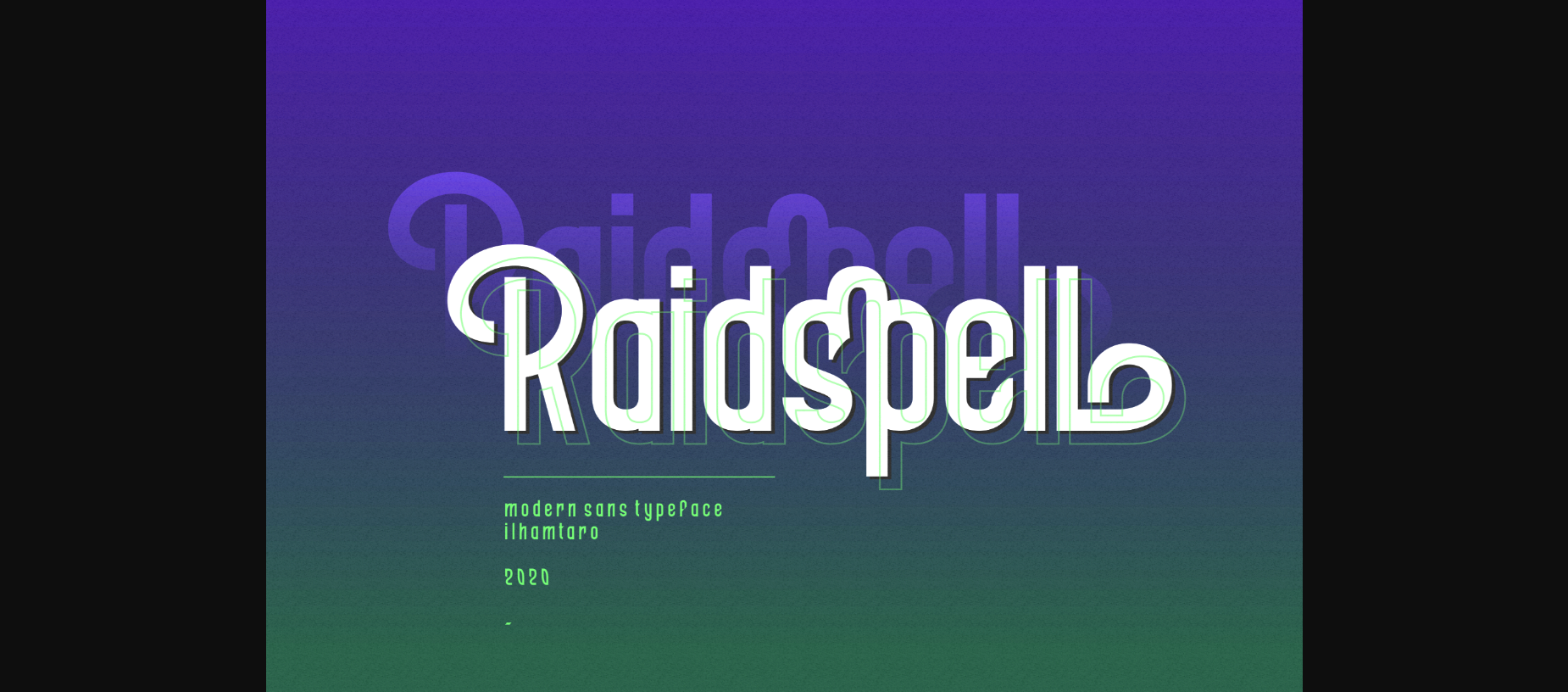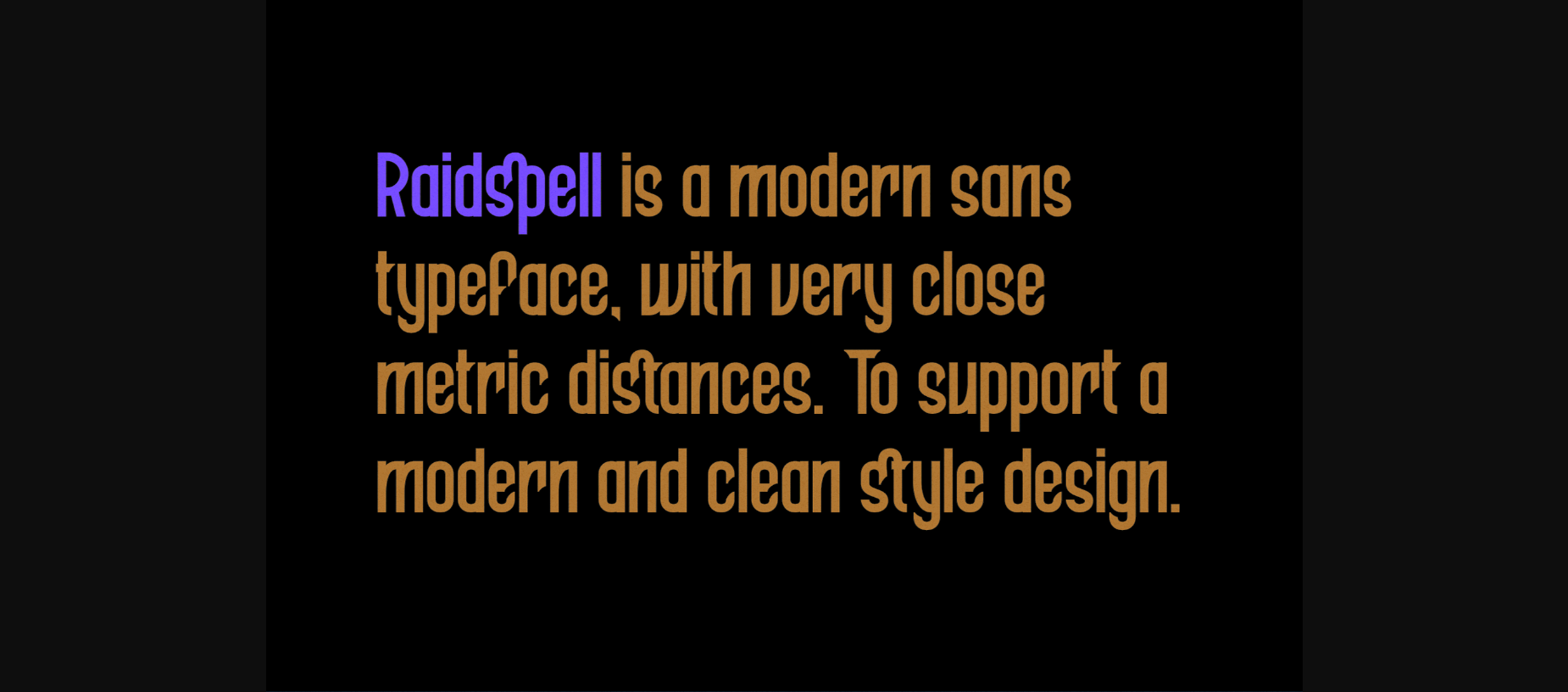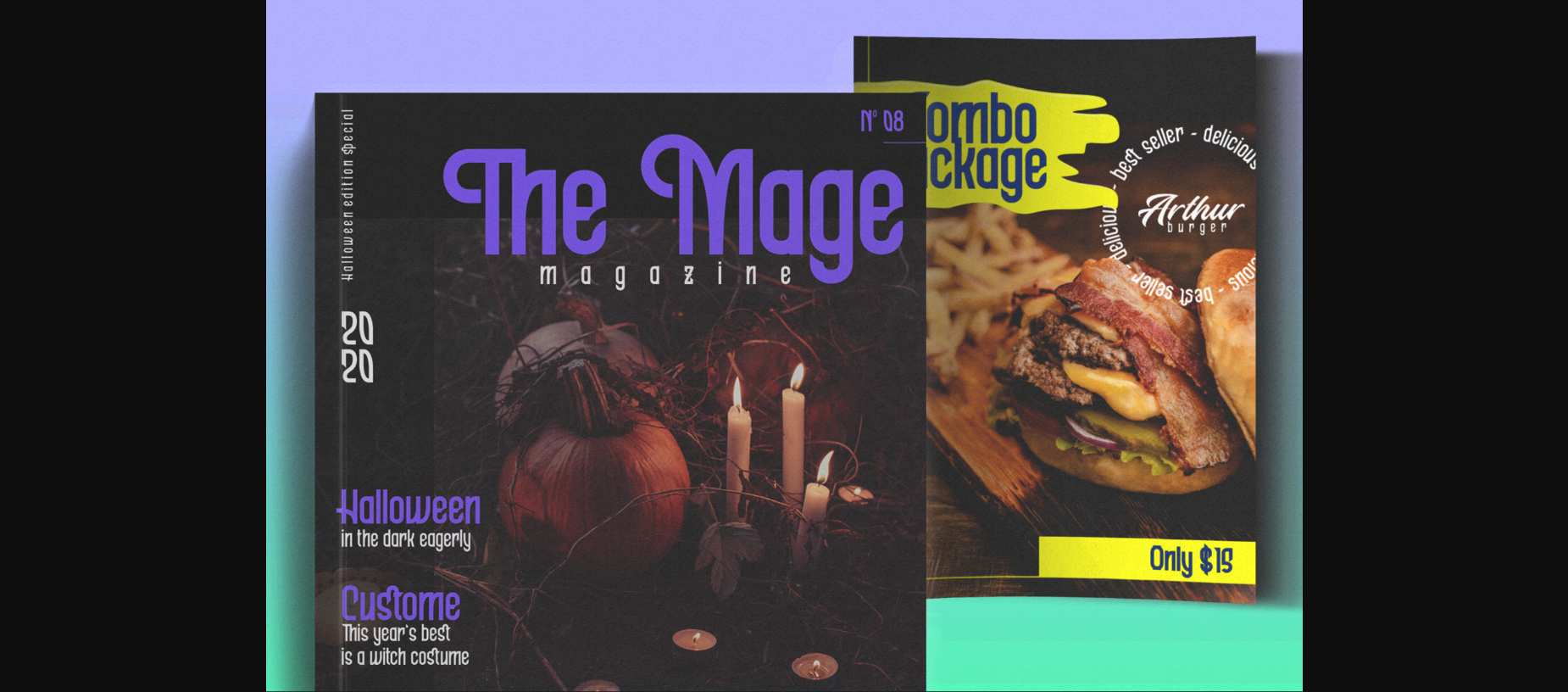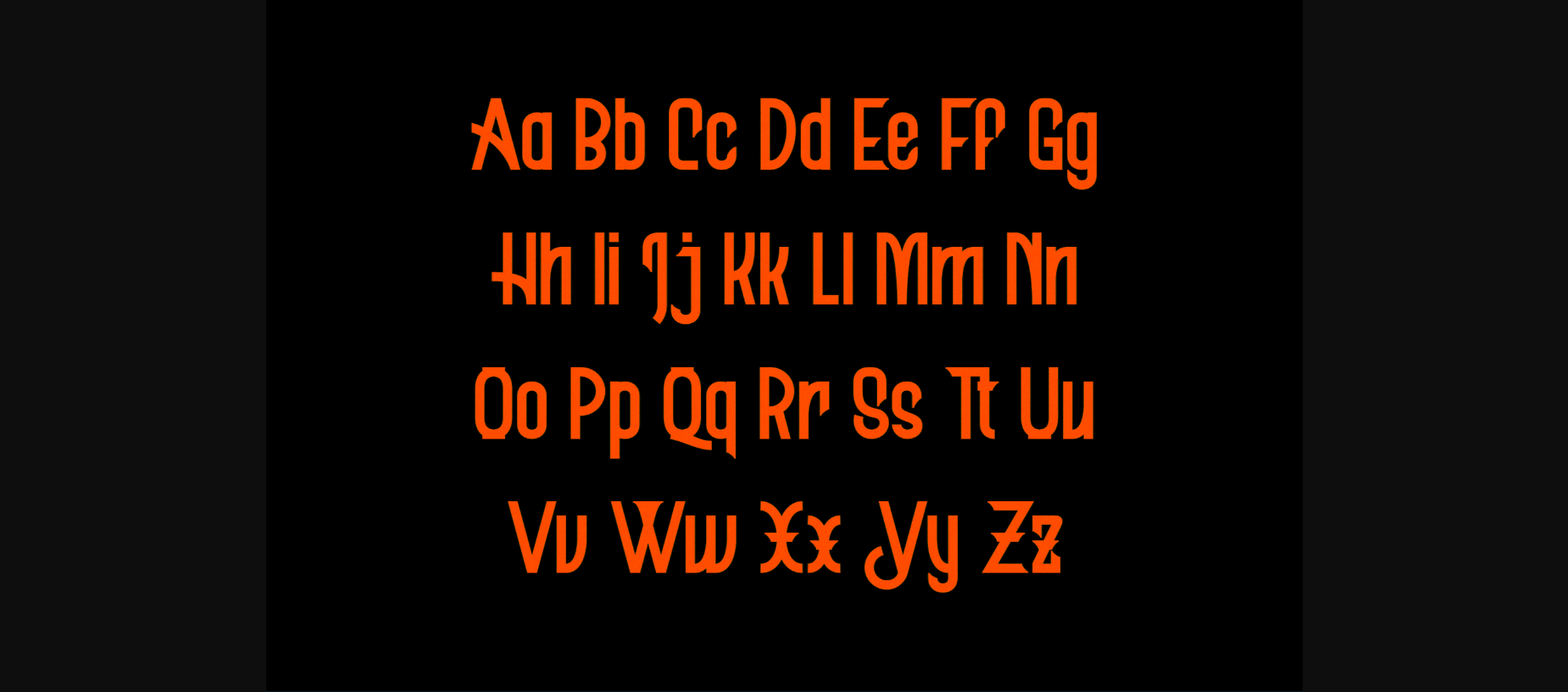
About Raidspell Font
Raidspell is a unique and modern sans serif font. Clean and a little bit quirky, this font is the perfect fit for all of your logos, branding, social media, and crafty DIY projects.